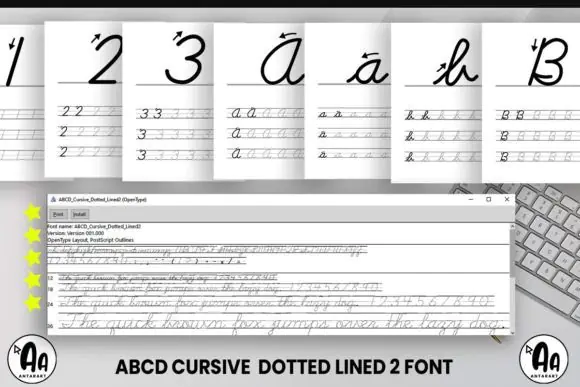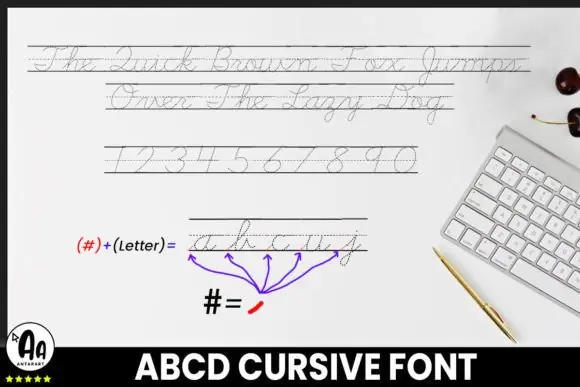
Create engaging handwriting practice materials with Abcd Cursive Dotted Lined2 Font, a ruled dotted cursive font designed for making educational worksheets, tracing pages, handwriting practice sheets, and learning resources. This font is especially useful for teachers, parents, homeschoolers, tutors, and worksheet creators who want to help children learn cursive writing in a clear and interactive way.
With its dotted cursive letter style and ruled line structure, this font makes it easy to create thousands of practice worksheets using common design or document software. It is ideal for classroom activities, printable handwriting books, alphabet tracing sheets, cursive writing lessons, practice pages, and digital learning materials.
This font is a great resource for anyone teaching cursive handwriting because it allows learners to follow the dotted letter shapes and improve their writing flow, spacing, and letter formation.
Design Style:
Educational, cursive, dotted, ruled, handwritten, worksheet-ready, kid-friendly, clear, practical, interactive, and classroom-focused.
Use Abcd Cursive Dotted Lined2 Font to create beautiful and useful handwriting practice resources that make cursive learning easier, clearer, and more enjoyable for children.